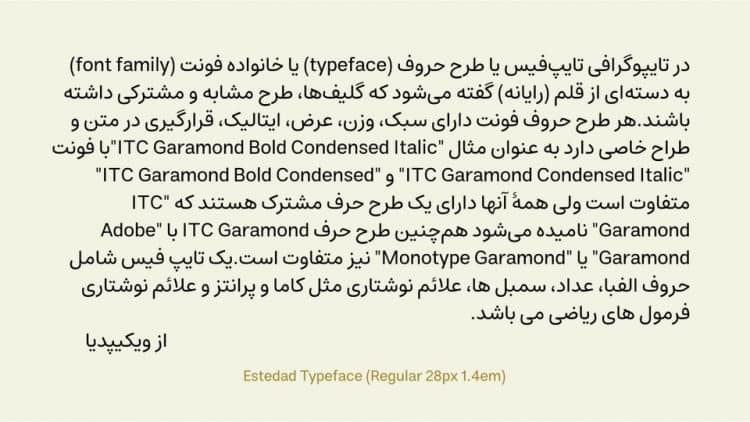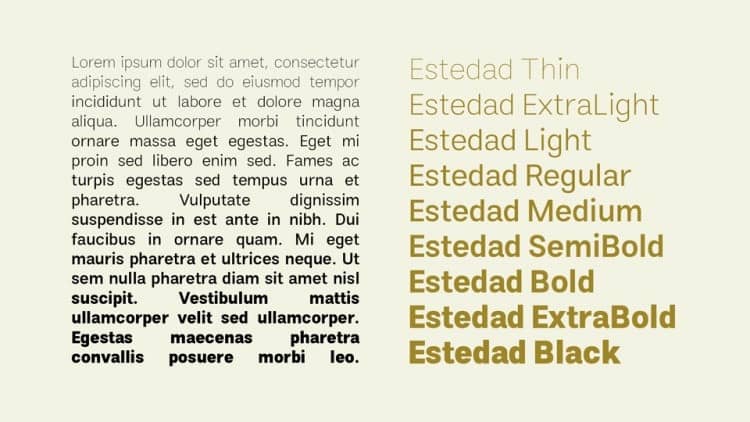
Introducing, Estedad Sans Serif Font– a vintage sans serif font. Inspired by 50s 60s signages, this font made to bring back the good ol’ days. Estedad is a Arabic-Latin typeface family in 9 weights and a variable version. The typeface is suitable for multiple usage. It has high legibility with modern and clear look to be use as text or display font.
Estedad includes static fonts in 9 standard weights(Thin to Black) and a variable typeface with 2 axes (Weight(wght):100-900 and Kashida(kshd):100-200) with 9 instances (placed on static weights coordinates).